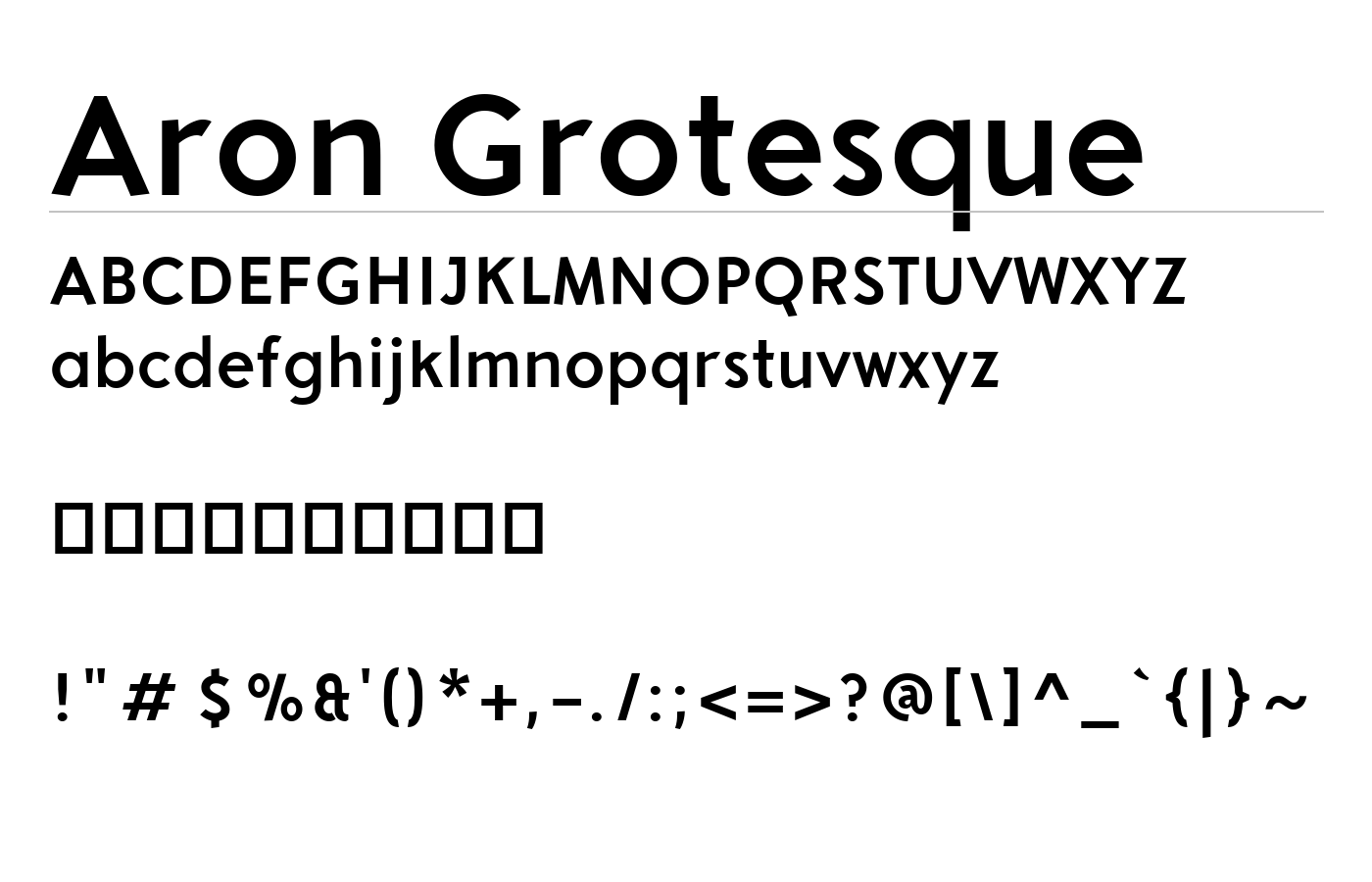
Aron Grotesque is a clean and modern sans-serif font with a balanced, medium weight and open letterforms that offer excellent legibility. Its geometric shapes combined with subtle humanist touches give it a friendly yet professional feel, making it ideal for contemporary branding, editorial design, and digital use. This versatile typeface works well in headlines and body text alike, providing clarity and style across various applications.
Aron Grotesque Font
About Aron Grotesque Font
| Designer | Valentino Coppi for Monocromo |